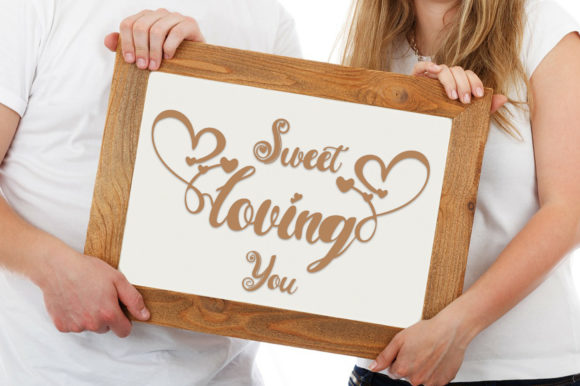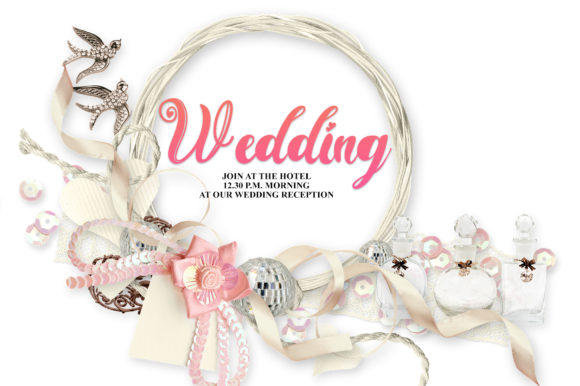
Better Together Font
db-ku.com - Script & Handwritten -- Better Together is a lovely and delicate script font that exudes elegance and class. This font was particularly crafted for those who need a beautiful and refreshing look to their designs.